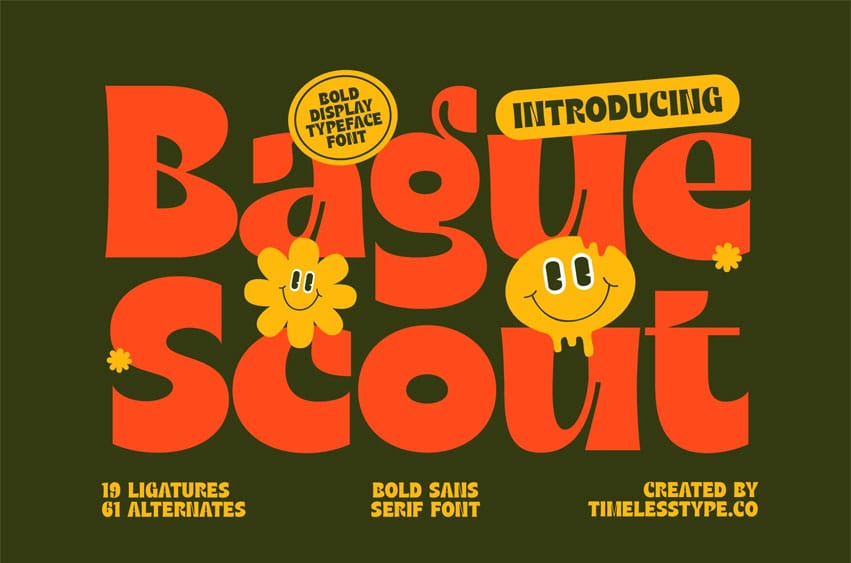
Bague Scout Font is a bold sans serif display font with a fun and retro-inspired aesthetic. Featuring 19 ligatures and 61 alternates, this typeface combines thick, rounded forms with playful details that make it perfect for posters, packaging, branding, and social media graphics.
With its cheerful and vintage personality, Bague Scout brings a nostalgic yet modern touch to creative projects that need a bold and friendly design.